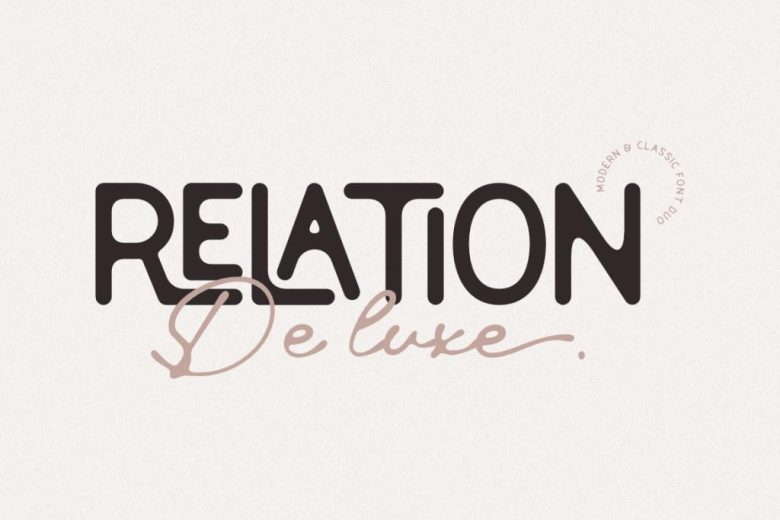
Relation De Luxe Font
Relations De Luxe is an eye-catching vintage-styled combination script and display font with attractive blurred and round effects, perfect for logos, magazines, social media posts and branding purposes as well as wedding invitations, quotes, business card packaging labels or anything else that needs a vintage-look.
The font pairs look both contemporary and classic while attractive features such as blurring make this font ideal. Attractive with its smooth round shapes make Relations De Luxe suitable to use in logos as well as magazine posts as well.
Perfectly suitable for logos as well as magazines as well as brands and social media posts as well as logos as magazines which often use font combinations; use Relations De Luxe can also be used on business card packaging labels or wedding invitations as it has several uses.
Relation De Luxe Font Duo